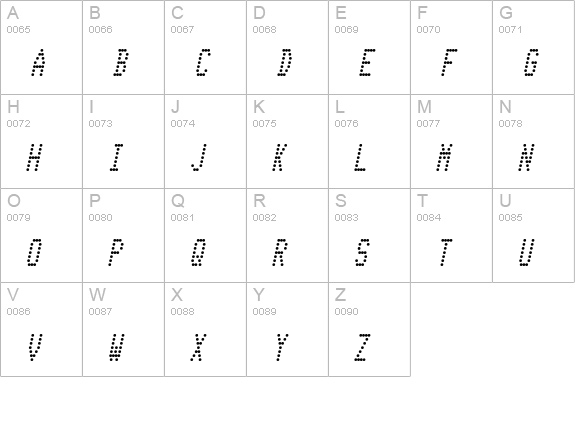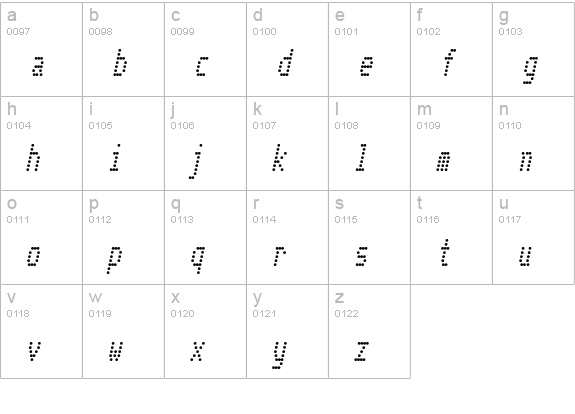
Telidon Cd Italic Font Details
Telidon Cd Italic is a distinctive, italic variant in the Telidon typeface family \xE2\x80\x94 well suited to design and typography projects.
Telidon Cd Italic is a sleek and modern font that effortlessly combines elegance with a touch of playfulness. Its distinctive italic style adds a dynamic flair to any design, making it perfect for a wide range of creative projects. The smooth curves and sharp angles of Telidon Cd Italic create a sense of movement and sophistication, making it a versatile choice for both digital and print applications. What sets Telidon Cd Italic apart is that it is not only stylish and eye-catching, but also free for anyone to use. That's right - this high-quality font is freely available to download at FontsMarket.com, allowing designers and creators to access a premium typeface without any cost. Whether you're working on a professional branding project or a fun personal design, Telidon Cd Italic is a fantastic choice that won't break the bank. Unlock your creativity and elevate your designs with this free and fabulous font today!